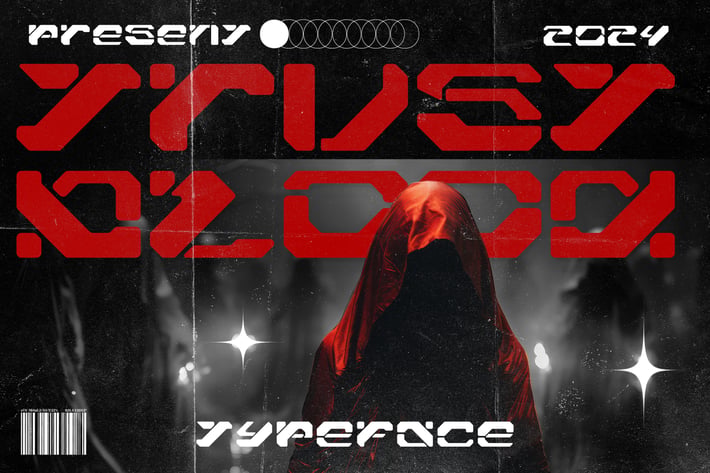
Trust Blood Typeface Y2k Tech Font
Trust Blood Typeface Y2k Font
a distinct, highly detailed. Modern Y2k Display Font.
It would make a great choice for exquisite retro-urban designs, business branding, logos, Apparel designs, and more.